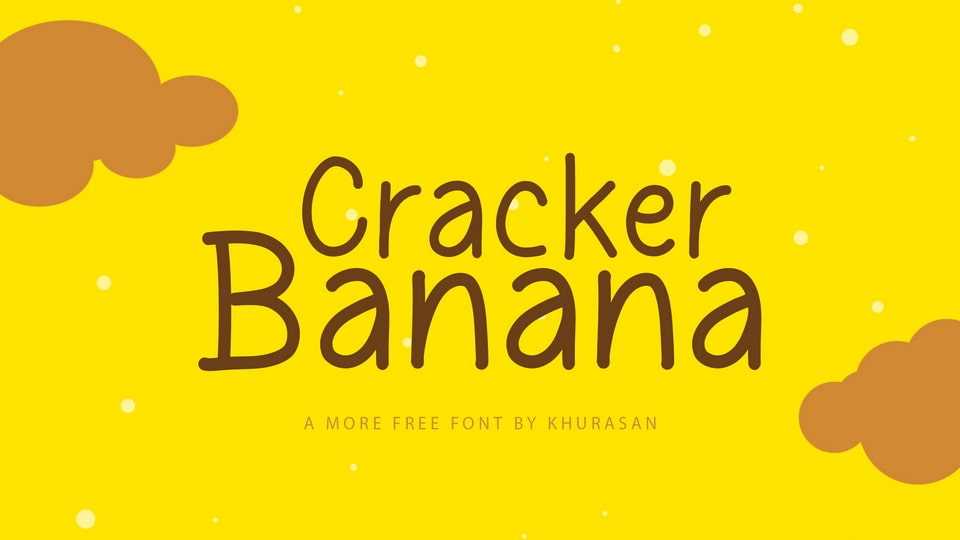
Download Cracker Banana font, a simple handwritten comic typeface that effortlessly blends the casual charm of handwritten notes with the dynamic appeal of comic book lettering.